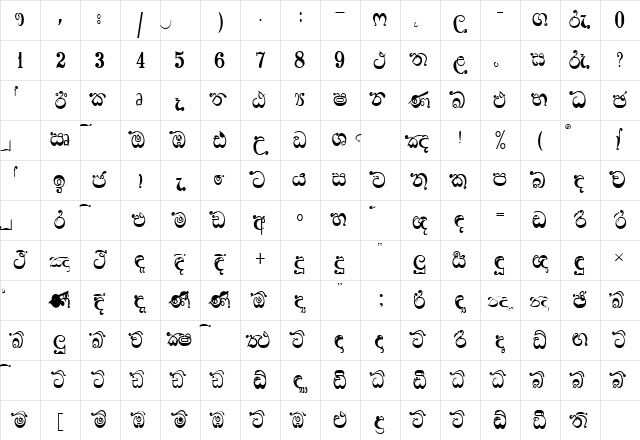
Complete Ridi 16 Plain glyph index. Displaying only characters natively supported by Ridi 16 Plain font.
Ridi 16 is a composed and adaptable typeface that performs quietly and consistently across a wide range of design contexts.